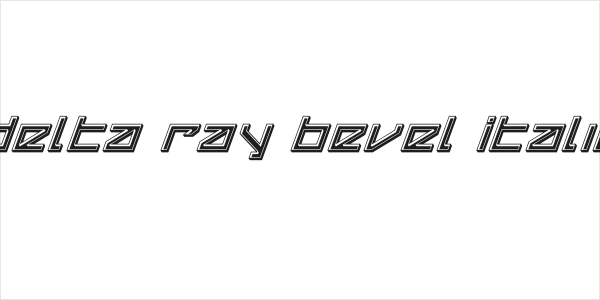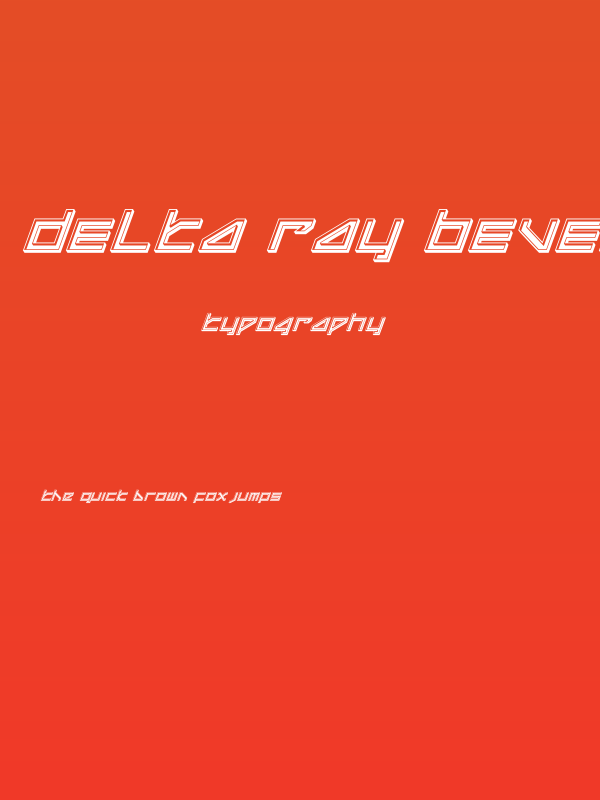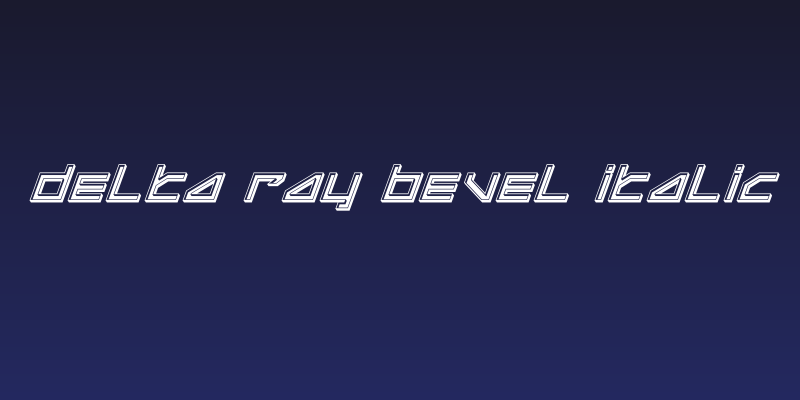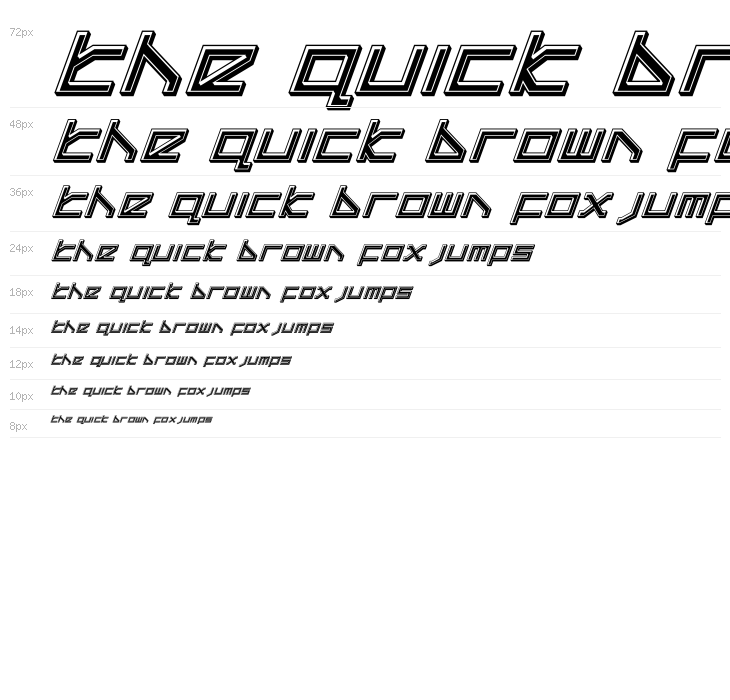
Delta Ray Bevel Italic Font
Delta Ray Bevel Italic Description
This font features a bold, futuristic design with a distinct bevel effect that gives it a three-dimensional appearance. The italicized style adds a sense of motion and dynamism, making it ideal for projects that require a modern and edgy look. The characters are outlined with a double line, enhancing the depth and visual interest. The uppercase and lowercase letters maintain a consistent style, with sharp angles and clean lines. Numbers and special characters are designed to match the overall aesthetic, ensuring a cohesive look across all text elements.
Overall StyleFuturistic, Dynamic
Proposed ProjectsIdeal for sci-fi themed designs, video game titles, tech branding, and dynamic posters.